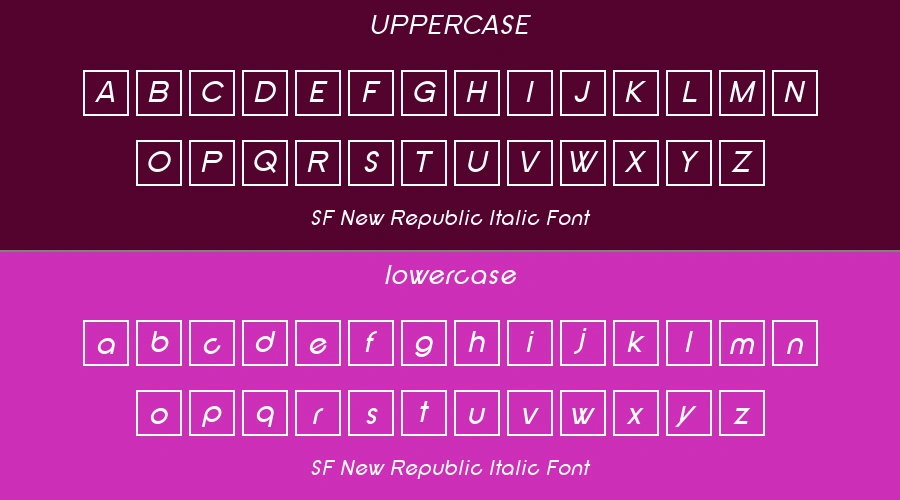
About SF New Republic Italic Font
Designed with precision, SF New Republic Italic Font merges engineered curves with typographic color in every character. This versatility makes it particularly effective for event branding, where versatility and manufacturing quality directly impact communication quality. Each letterform demonstrates meticulous craftsmanship.
Technical excellence shines through elements like geometric construction and proportional figures, enhancing typographic versatility. In brand logos settings, SF New Republic Italic Font proves its worth through superior detail preservation. The thoughtful execution of proportion and artistic merit ensures professional results.
SF New Republic Italic Font |